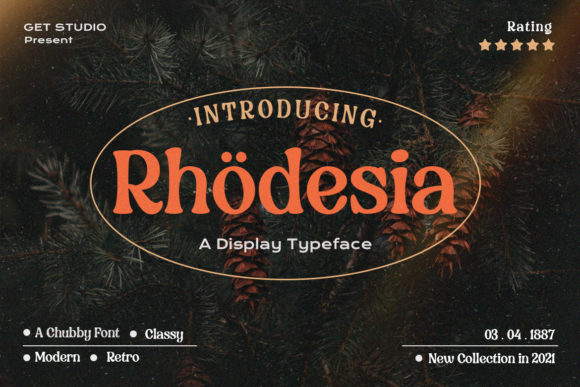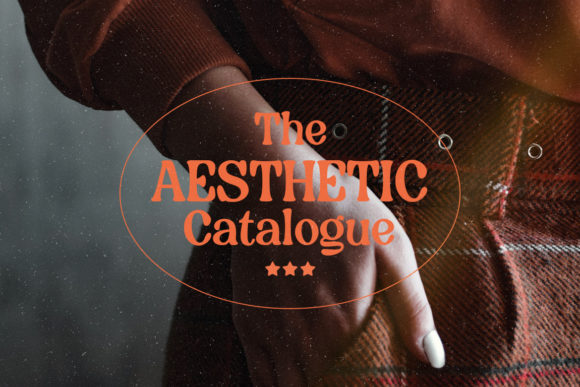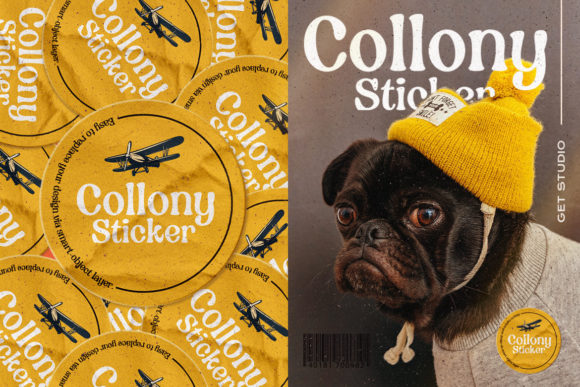
Rhodesia Font: A Classy & Retro Display Font for Unique Logo Design
About the Rhodesia Font
Explore the possibilities with Rhodesia Font, a font that offers both beauty and functionality. Rhodesia is a cool and vintage looking display font. No matter the topic, this font will be an incredibly asset to your fonts’ library, as it has the potential to elevate any creation.
Rhodesia’s strong, vintage aesthetic makes it ideal for headlines, logos, and short, impactful text on posters or packaging. Its retro charm works particularly well for projects with a vintage, Americana, or Western feel. Avoid using it for body text or lengthy paragraphs; its highly stylized forms are not optimized for readability in continuous blocks of text. It also isn’t suitable for user interfaces due to its low legibility at smaller sizes.
For a balanced pairing, consider a clean sans-serif like Montserrat or a neutral serif like Lora for body copy. These fonts offer a strong contrast in style, allowing Rhodesia to stand out while maintaining visual coherence. Alternatively, for a more playful feel, a handwritten script like Pacifico could complement Rhodesia’s vintage vibe.
Rhodesia projects a bold, confident, and slightly rebellious personality. It is best suited for brands that want to convey a sense of heritage, authenticity, or a retro-inspired aesthetic. Its visual weight makes it a powerful choice for commanding attention.
Rhodesia Font Usage Examples
Rhodesia Font Example